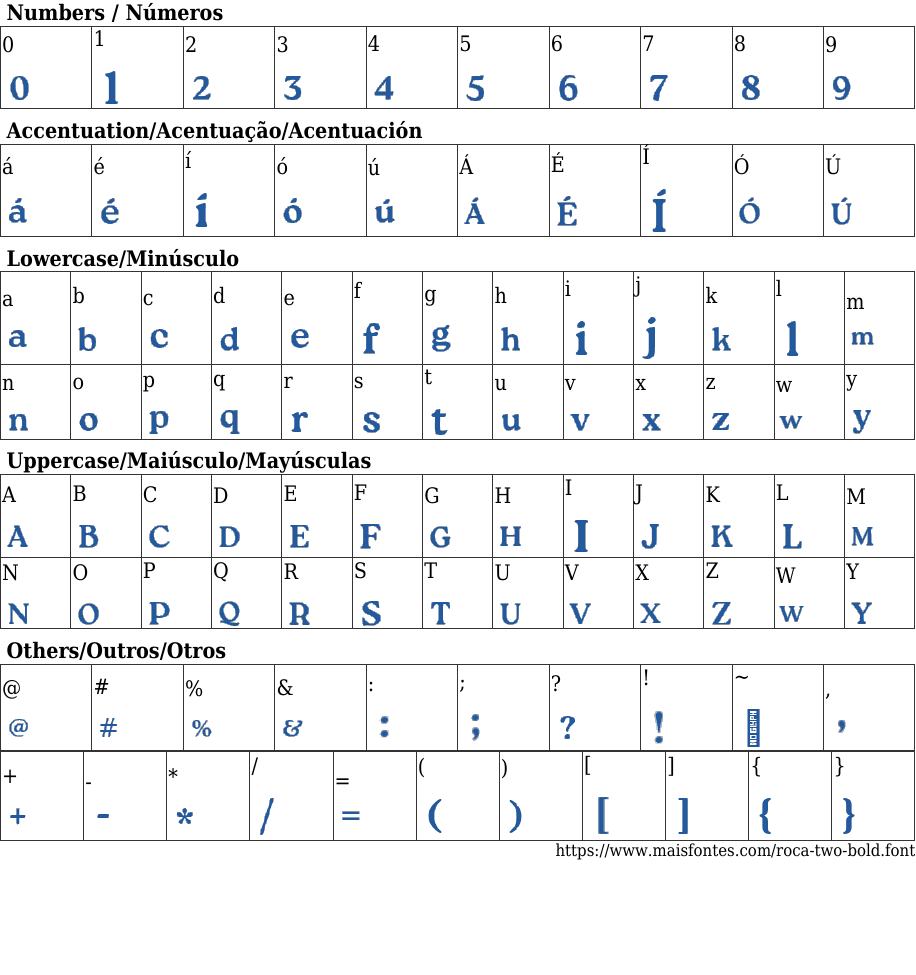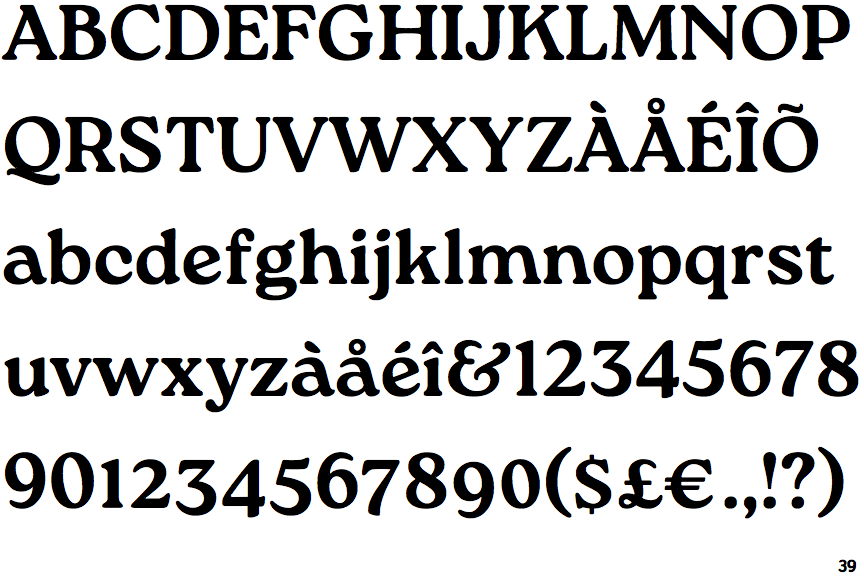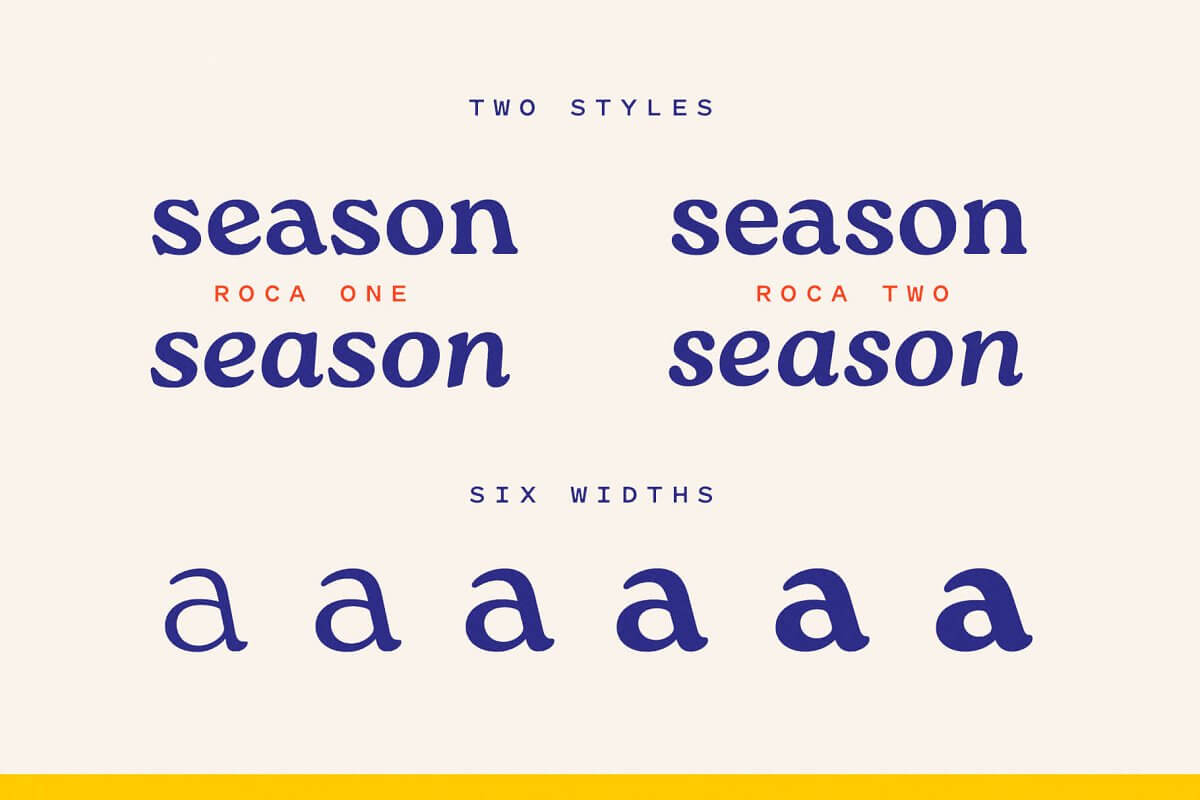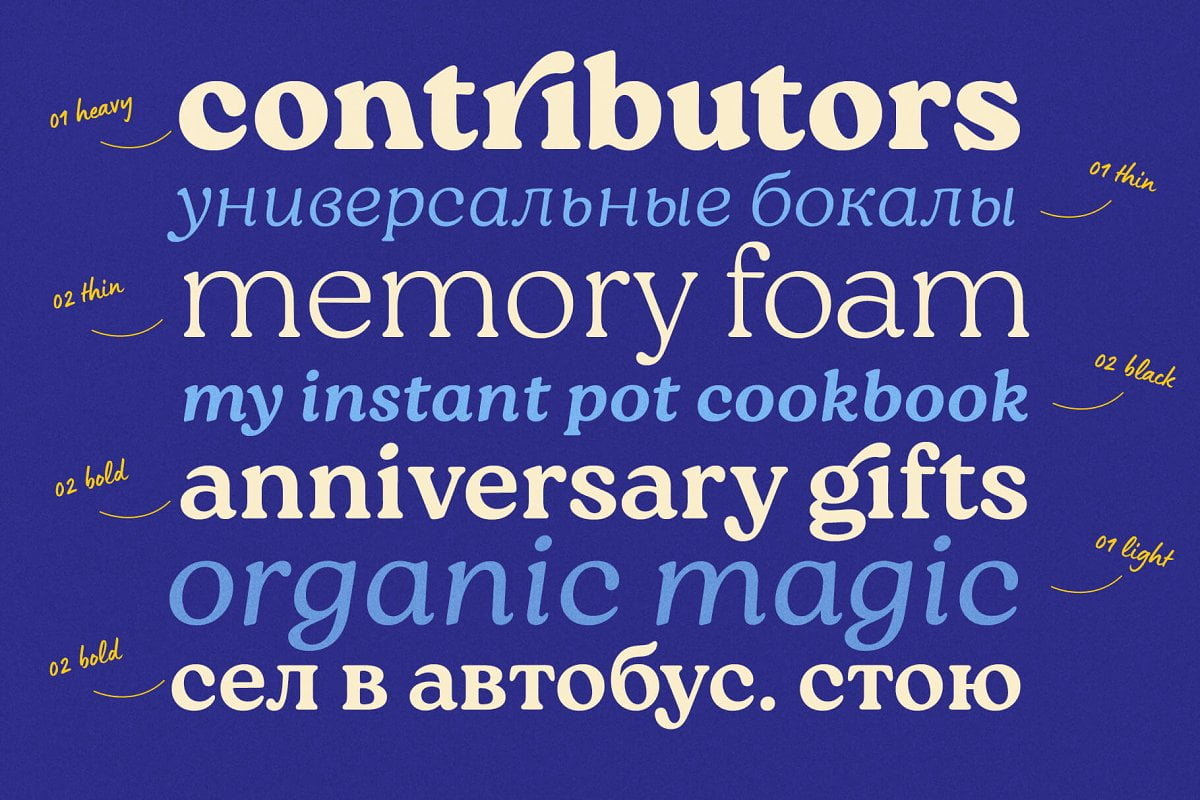
Roca Bold Font - Explore roca designed by elena genova at adobe fonts. This font features bold, rounded serifs with a classic. A bold serif font with a classic and robust style. Download roca one bold font. A serif typeface with 10 styles, available from adobe fonts for sync and web use.
A Bold Serif Font With A Classic And Robust Style.